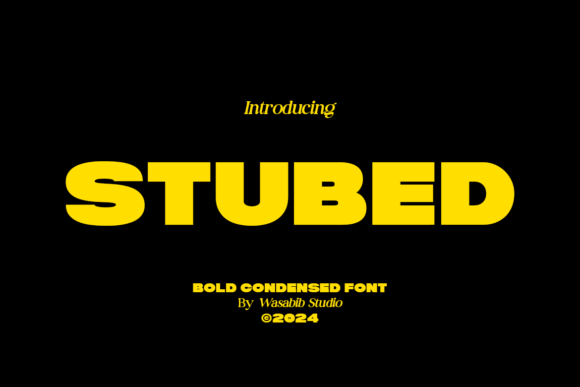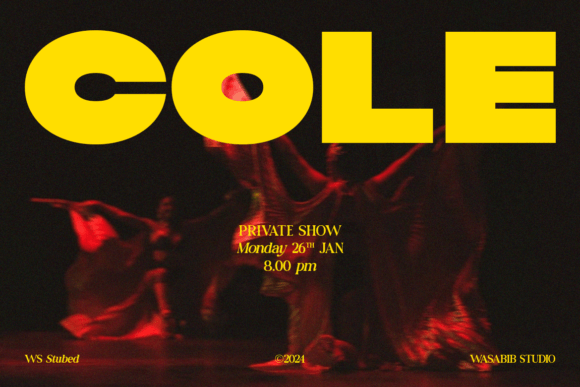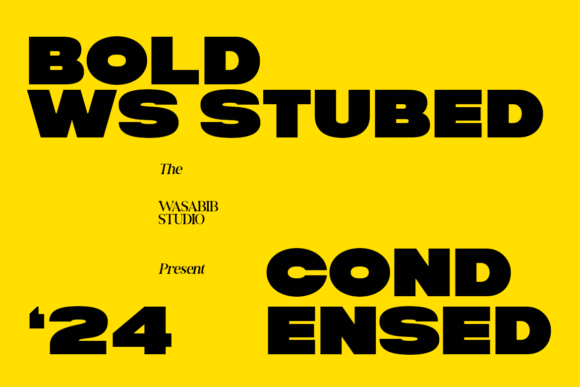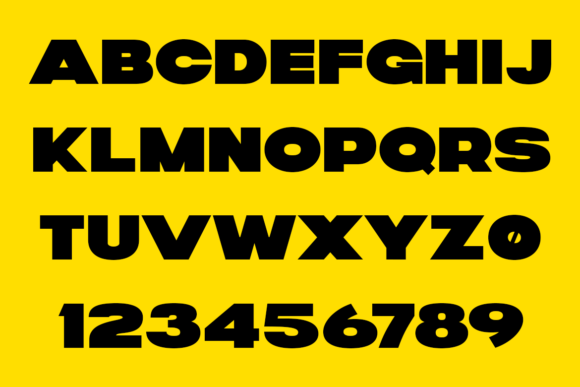
Stubed Font: A Modern & Bold Sans Serif for Striking Logo Design
About the Stubed Font
Get ready to be inspired by Stubed Font, a fresh and dynamic typeface for modern creators. Stubed is a strong, sharp, modern, and bold font that is ideal for branding purposes. Its powerful and impactful design makes it a great choice for creating a memorable brand identity that conveys strength, modernity, and professionalism.
Stubed Font Usage Examples